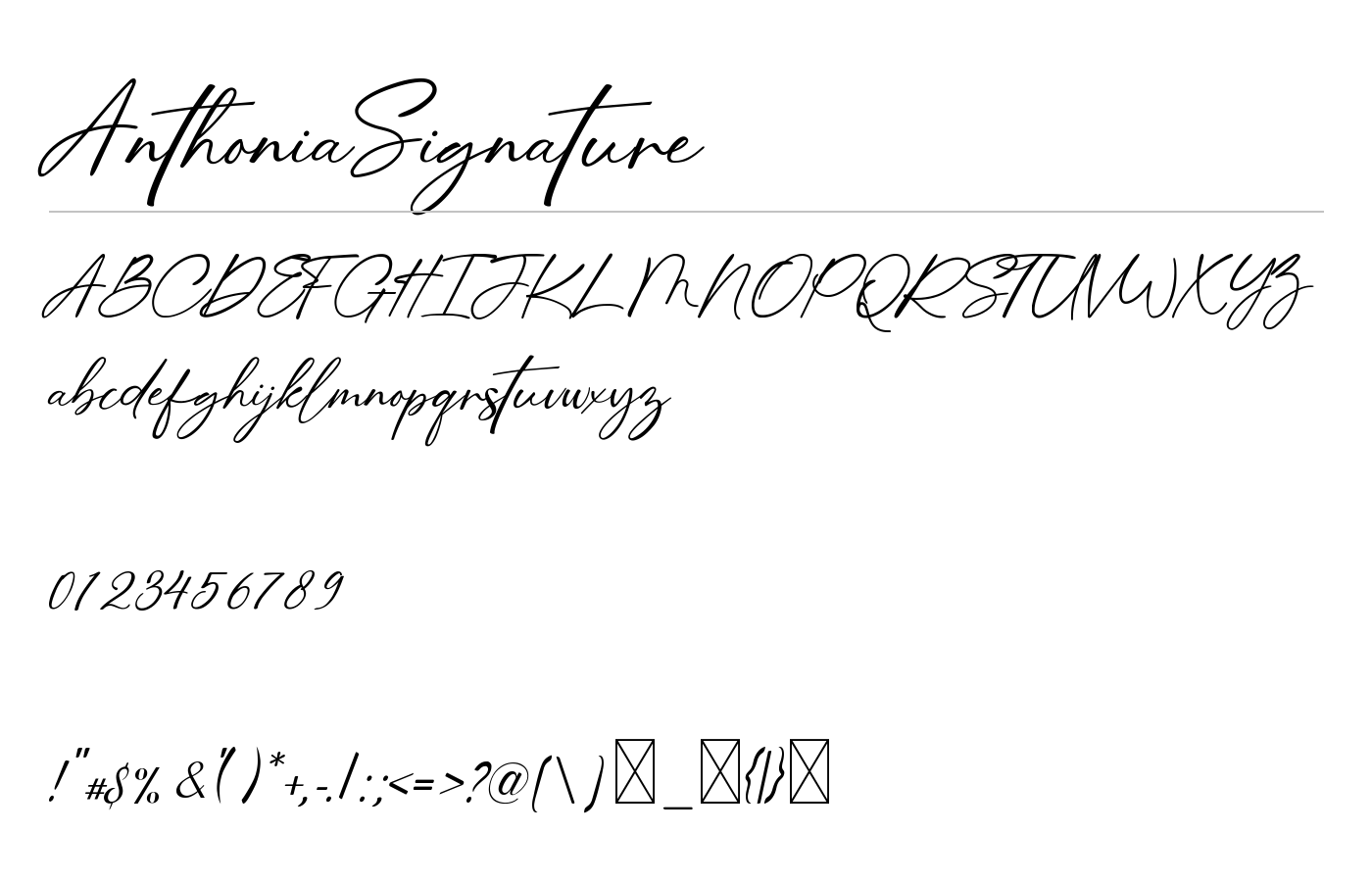
AnthoniaSignature is an elegant, flowing script font that mimics natural handwriting with a refined, personal touch. Its light weight and smooth, slender strokes make it perfect for adding a sophisticated, intimate feel to wedding invitations, branding, and stylish logos. This font’s graceful curves and legible style work beautifully in design projects that need a modern yet timeless handwritten charm.
AnthoniaSignature Font